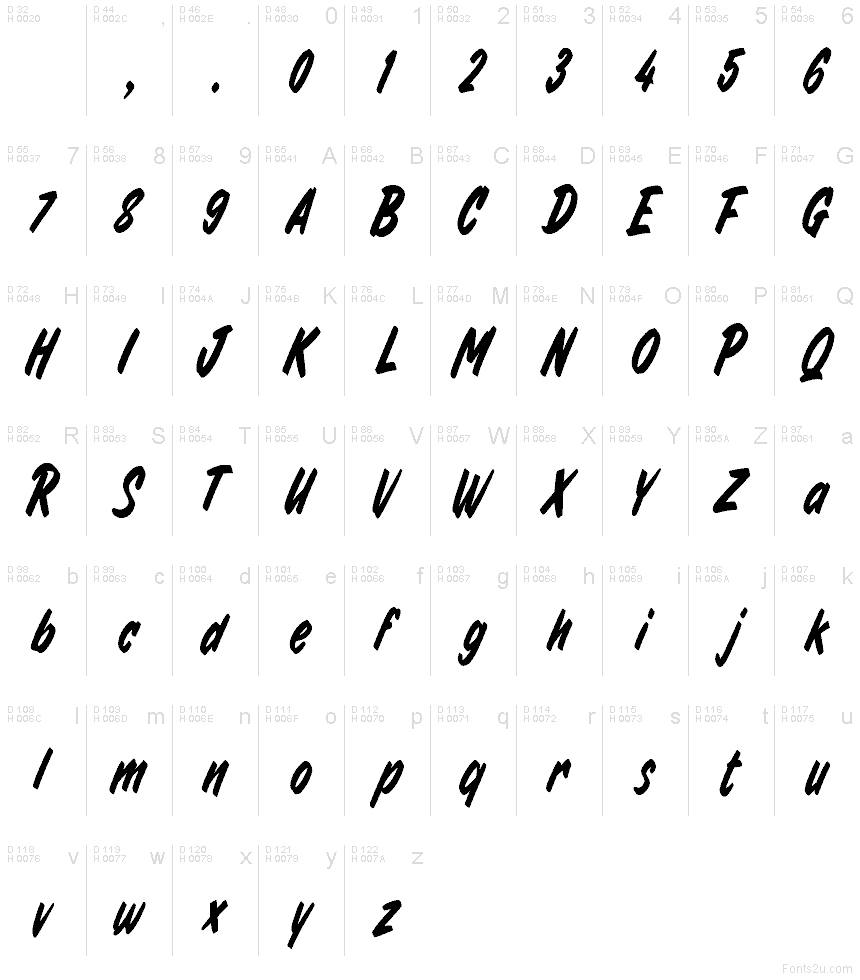
Boom Shakalaka font by Ikiiko Type is an energetic and expressive modern brush typeface. Its bold weight and condensed width create a strong visual impact, with urban influences and a casual aesthetic. This font delivers maximum detail in its design with its handwritten feel for typography that resembles markers/paint strokes.
Use Boom Shakalaka on magazine headings, product packaging, modern branding projects including clothing designs and skateboard stickers, movie posters, music album covers, or web pages which need personality. Unleash the full potential of this free display font!